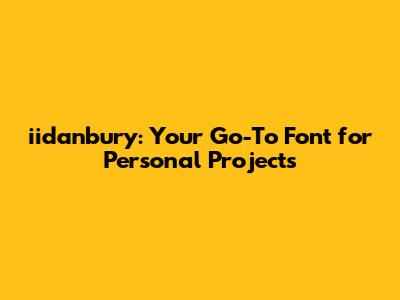
Hey guys! Ever been on the hunt for the perfect font for your personal projects? You know, something that's stylish, easy to read, and adds that special touch? Well, let me introduce you to iidanbury, a font that's quickly becoming a favorite for small personal use. This isn't just any font; it's got a unique charm that can elevate everything from your social media posts to your personal website. So, let's dive into why iidanbury might just be the font you've been looking for. We'll cover everything from its design and versatility to how and where you can use it, ensuring you get the most out of this awesome font.
The Allure of iidanbury: Design and Aesthetics
First things first, what makes iidanbury so special? The magic lies in its design. This font typically showcases a modern yet friendly aesthetic. It's often characterized by clean lines, making it easy on the eyes, and a touch of personality that prevents it from feeling sterile. You'll find that iidanbury often falls into the category of a sans-serif font, though it may have some unique quirks that set it apart. These might include slightly rounded corners, interesting letter shapes, or variations in stroke weight that give it a distinctive look. The goal is always to create a balance between readability and style, ensuring that your text looks good and effectively communicates your message. Its legibility makes it perfect for longer pieces of text, like blog posts or personal essays, while its flair adds a touch of sophistication to shorter text, such as headlines or social media graphics.
Consider the projects where you can use it – designing a personal blog, creating invitations, or even crafting social media content for your personal brand. iidanbury can adapt to these different needs with ease. It's a versatile font that complements various design styles. Whether you're aiming for a minimalist look or something a bit more playful, iidanbury can fit the bill. In essence, it's designed to be approachable and adaptable, allowing you to showcase your creativity without feeling restricted by the limitations of a less flexible font. This adaptability is what makes it a go-to choice for many designers and personal users alike. From its clean lines to its subtle personality, every aspect of iidanbury is carefully crafted to ensure that it’s not only visually appealing but also a joy to use. The design of iidanbury makes it stand out because it's not trying to be everything to everyone; instead, it focuses on doing a few things really well. It is a fantastic option for personal projects when you want something that's both professional and personal, a balance that’s often hard to strike.
Where Can You Use iidanbury? Unveiling Its Versatility
Now, let's talk about where you can unleash iidanbury's potential. The beauty of this font lies in its versatility. It's a star player in a variety of personal projects. Let's look at the best applications. For starters, think about your personal website or blog. iidanbury is an excellent choice for body text and headlines, providing a cohesive and stylish look. It's easily readable on screens, which is essential for engaging your audience. It's perfect if you are working on designing a personal logo or branding? iidanbury can also play a pivotal role. The font's clean lines and modern feel lend themselves well to creating a brand identity that’s both memorable and professional. You can incorporate iidanbury into your logo, business cards, and other marketing materials, building a consistent visual identity.
When it comes to your social media, iidanbury will be your visual communication weapon. Whether you're crafting posts for Instagram, Facebook, or Twitter, this font can help you make your content pop. Use it for text overlays on images, creating eye-catching quotes, or designing engaging captions. The font's versatility allows you to experiment with different styles and layouts, ensuring that your content stands out in a crowded digital space. And do not forget your personal documents and presentations. iidanbury can also bring a touch of elegance to your personal documents and presentations. It’s a great choice for resumes, cover letters, and even personal essays. The font's readability ensures that your content is easy to digest, while its modern design conveys professionalism and attention to detail. Plus, if you're working on invitations, thank-you cards, or any other personal stationery, iidanbury can add that special, personalized touch that makes your creations unique. The adaptability of iidanbury makes it the ideal companion for all your projects.